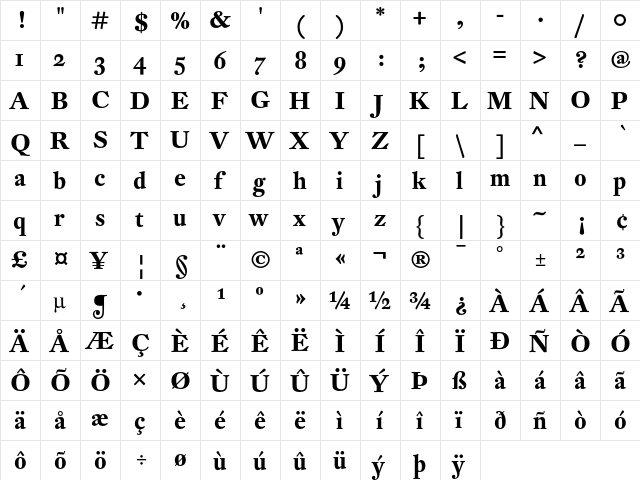
DTL Fleischmann SD Bold
Design Context for DTL Fleischmann Typeface
DTL Fleischmann offers clean, dependable letterforms without strong stylistic allegiance, making it a practical choice for designers who need flexibility. The heavy weight commands attention and anchors typographic hierarchies.